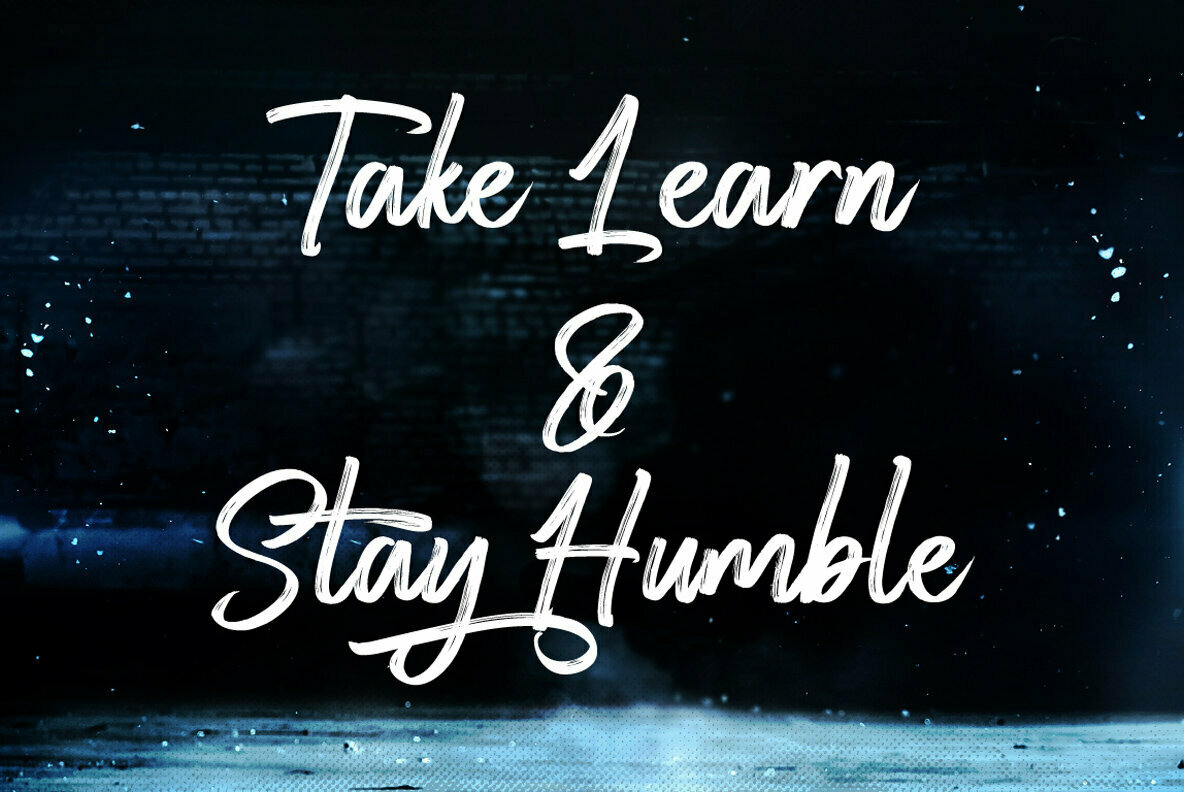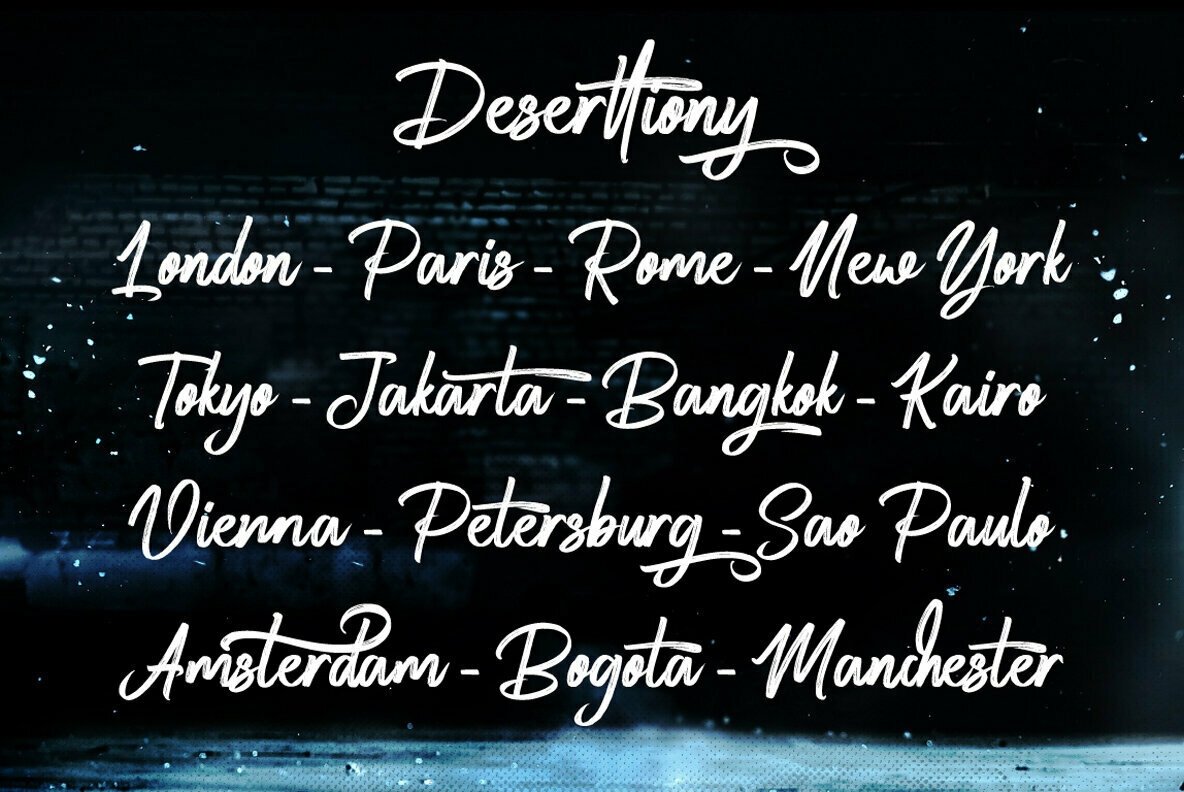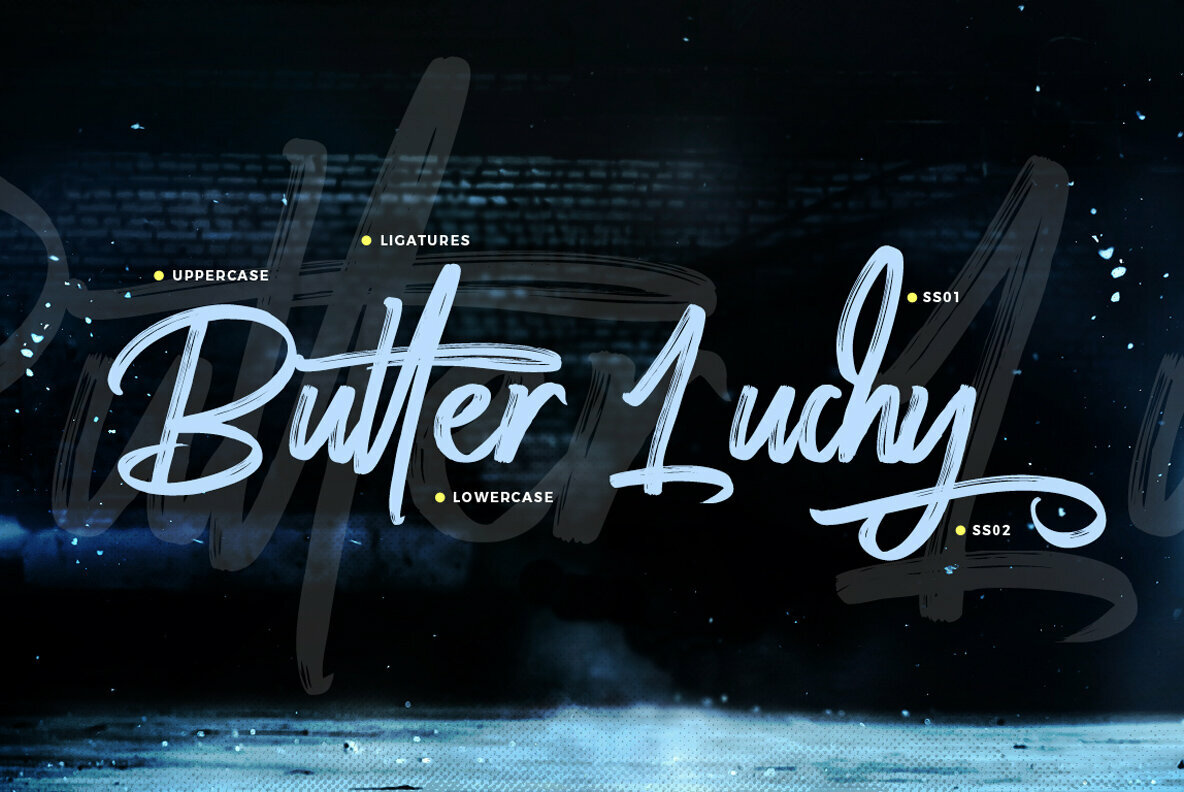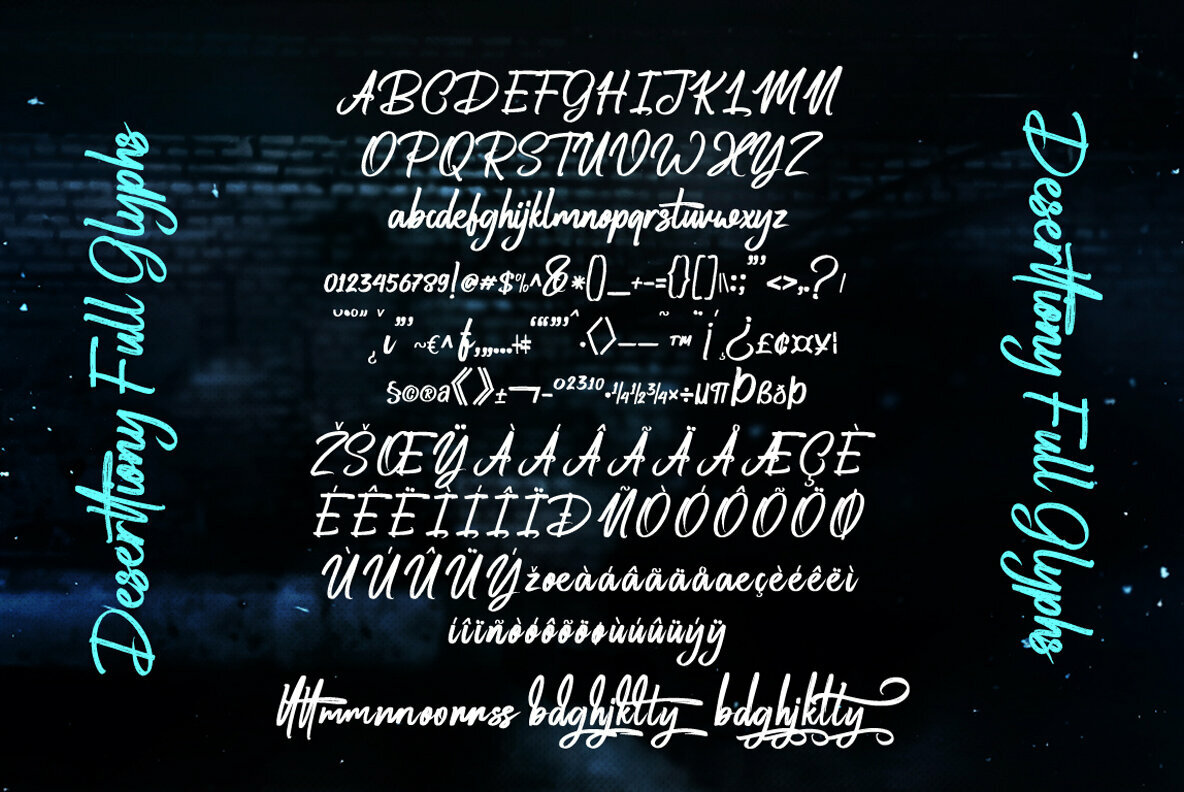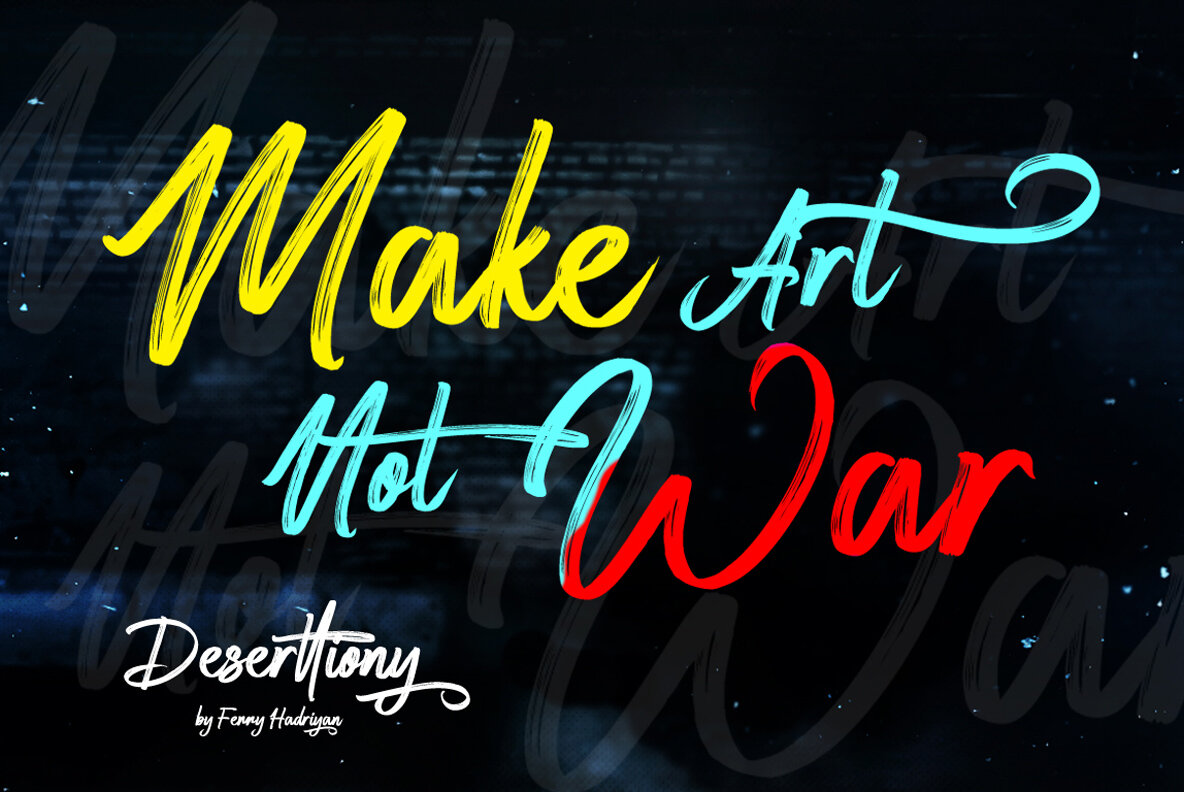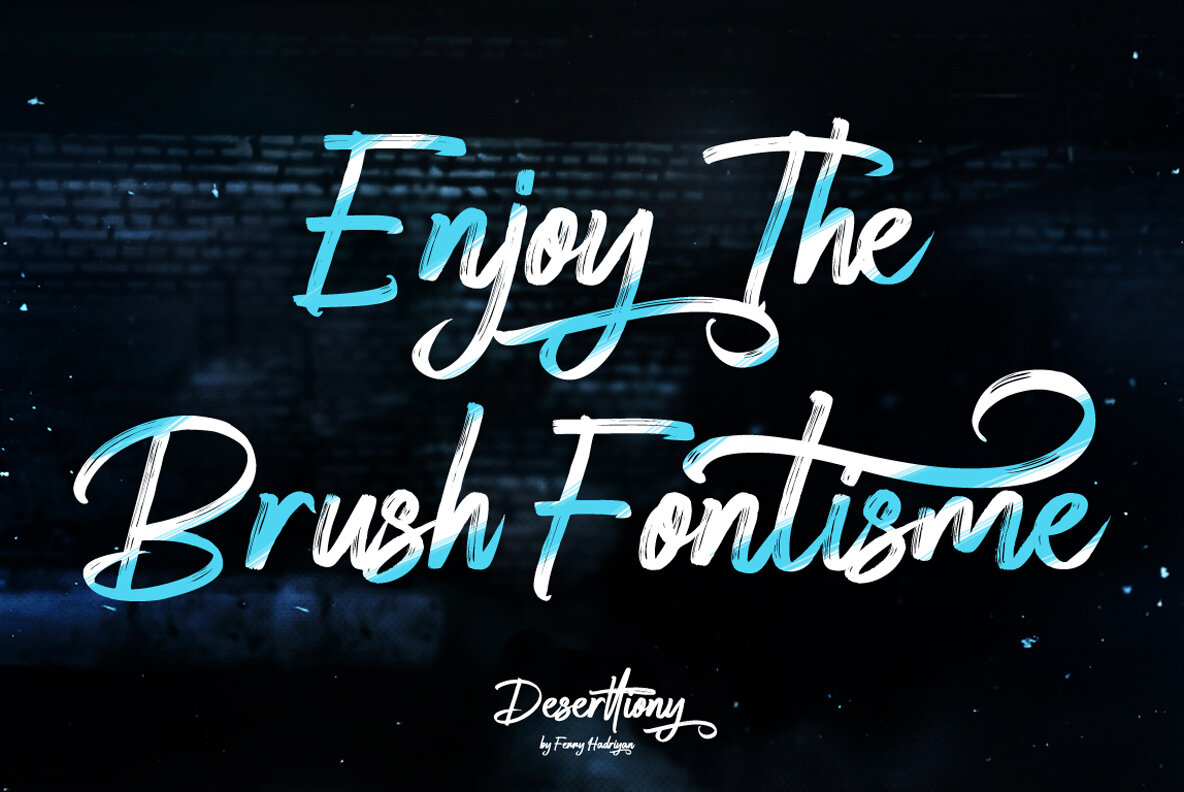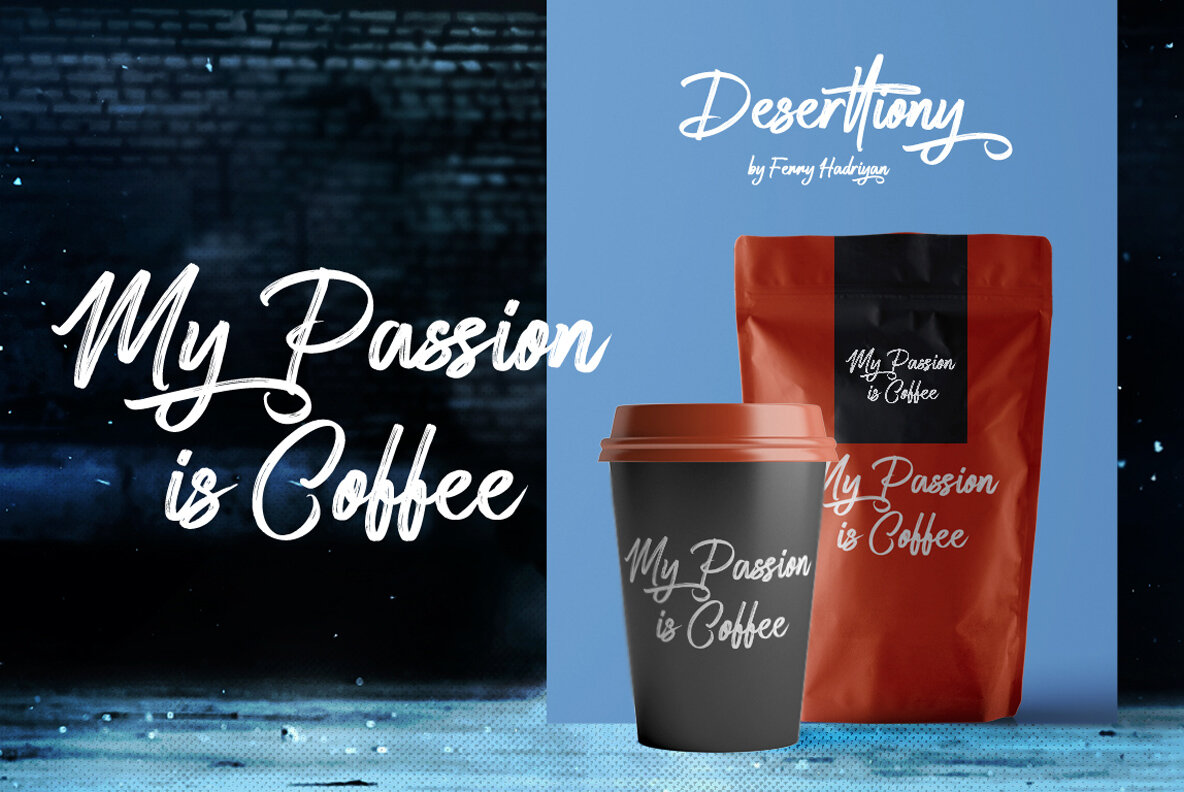
Deserttiony Font
Deserttiony
Deserttiony emerges as a distinctive script font, exuding a hand-lettering brush charm ideal for a plethora of creative undertakings. Its unique design and inspirational strokes highlight its suitability for everything from wedding invitations to logos, t-shirts, and beyond. Enhanced with OpenType features, it offers unrivaled versatility for designers seeking to add a personal touch to their work.Deserttiony: A Brush Script for Creative Projects
Features of Deserttiony
With Deserttiony, elevate your designs with a script that seamlessly blends beauty and function.